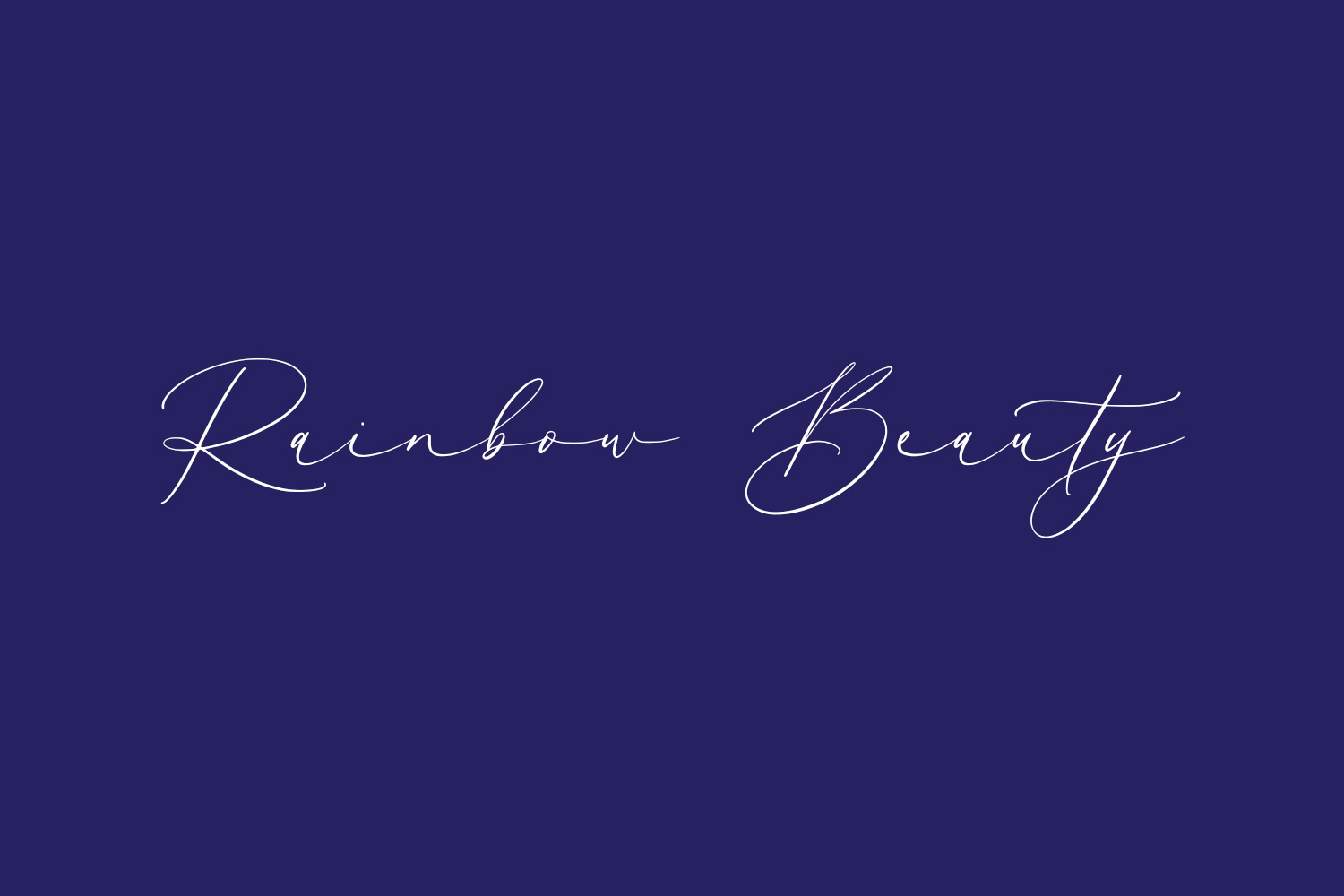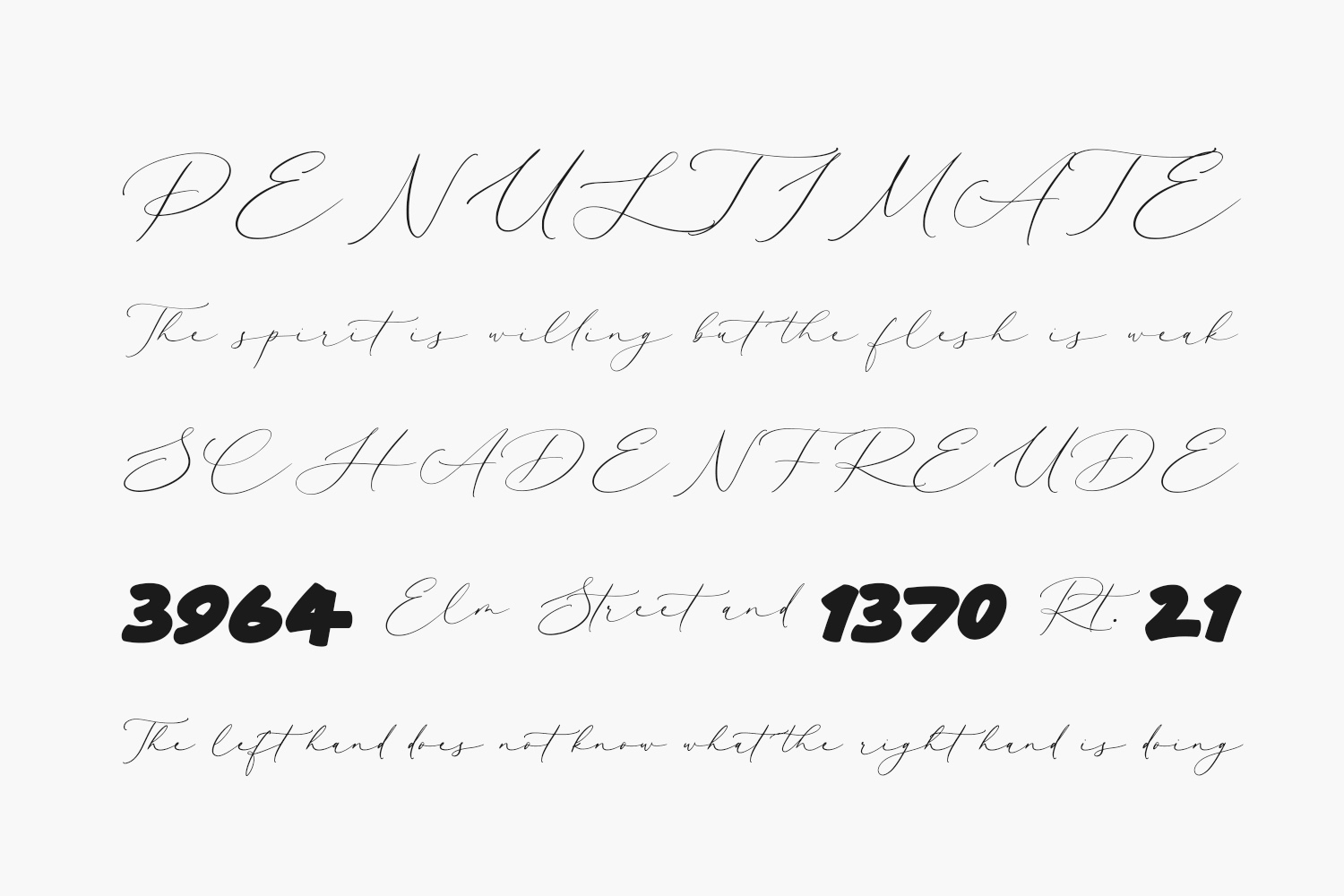
Rainbow Beauty Free Font is a chic, refined script font that emanates sophistication and elegance. Its stylish alternates and ligatures make this font the perfect match for any project. Rainbow Beauty Free Font was designed by Nirmana Visual is a demo and free for personal use only. Please purchase the full version for commercial use.